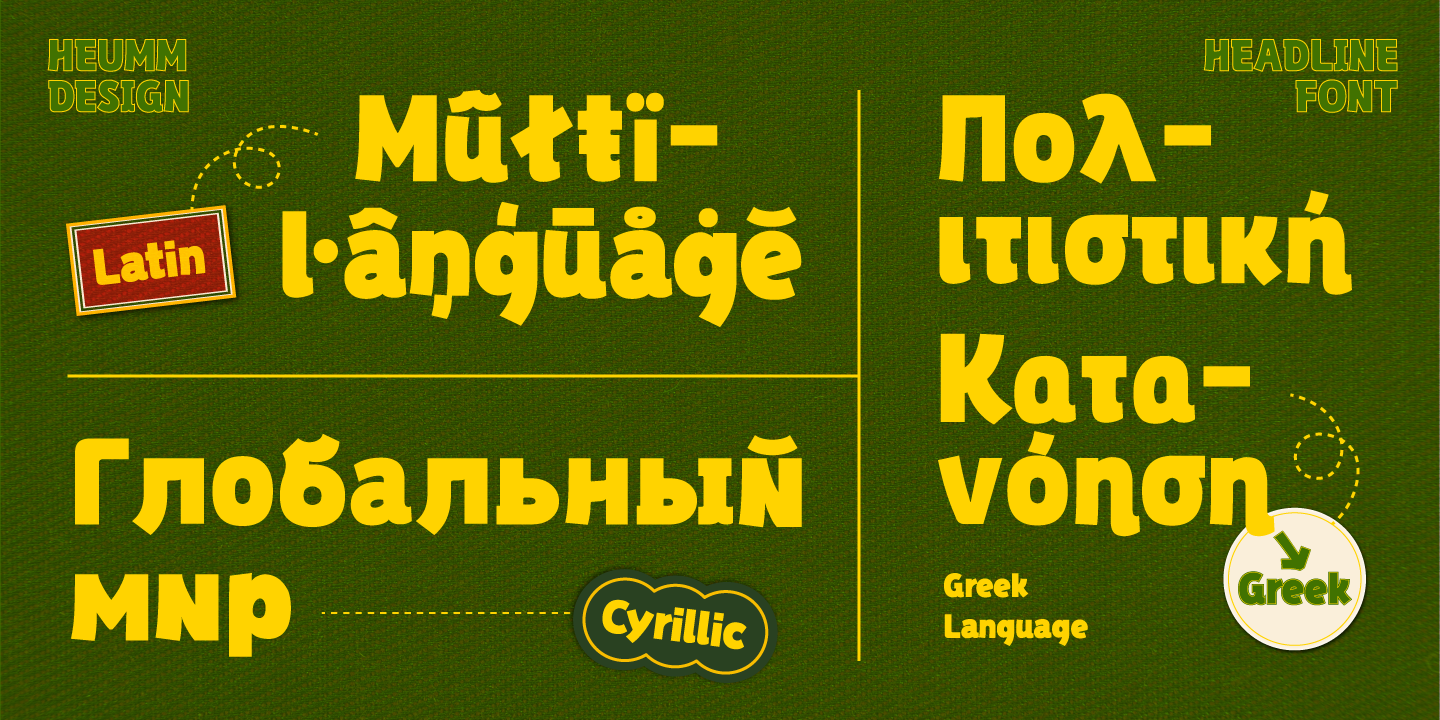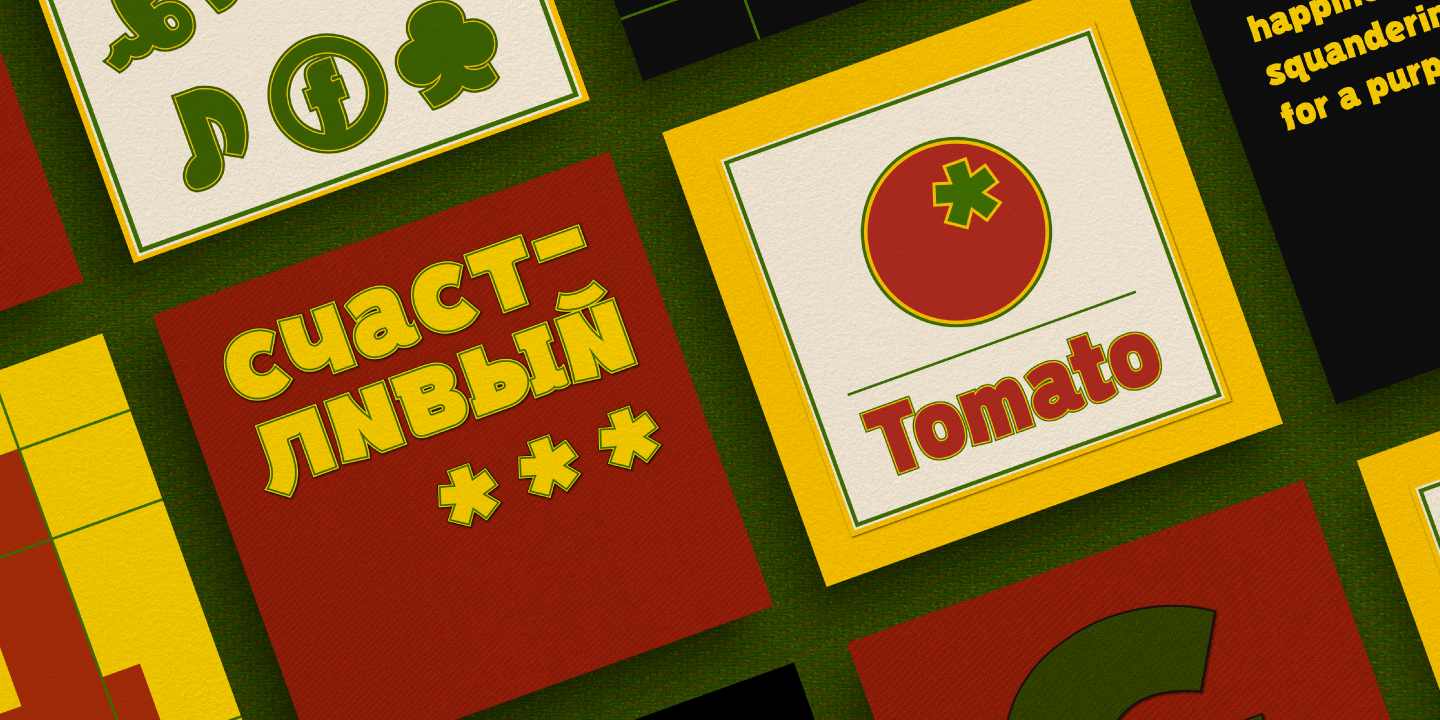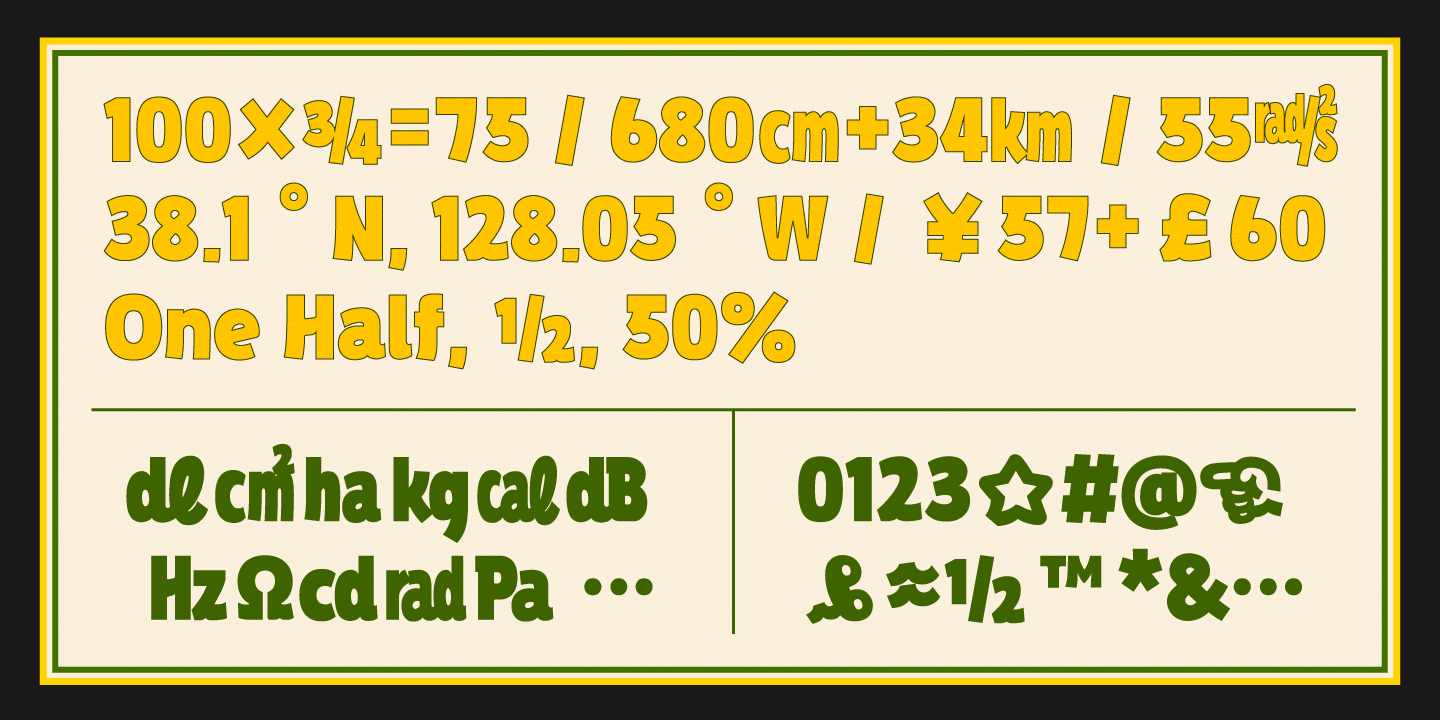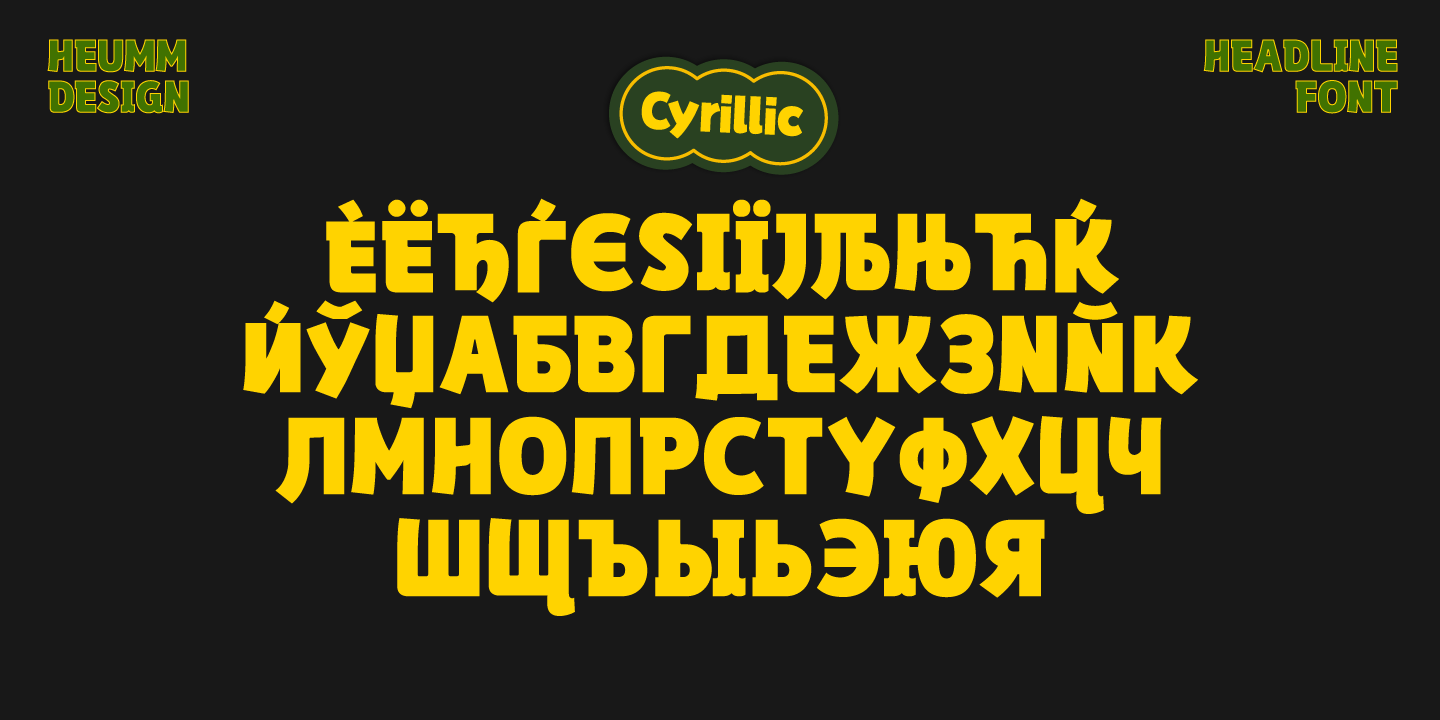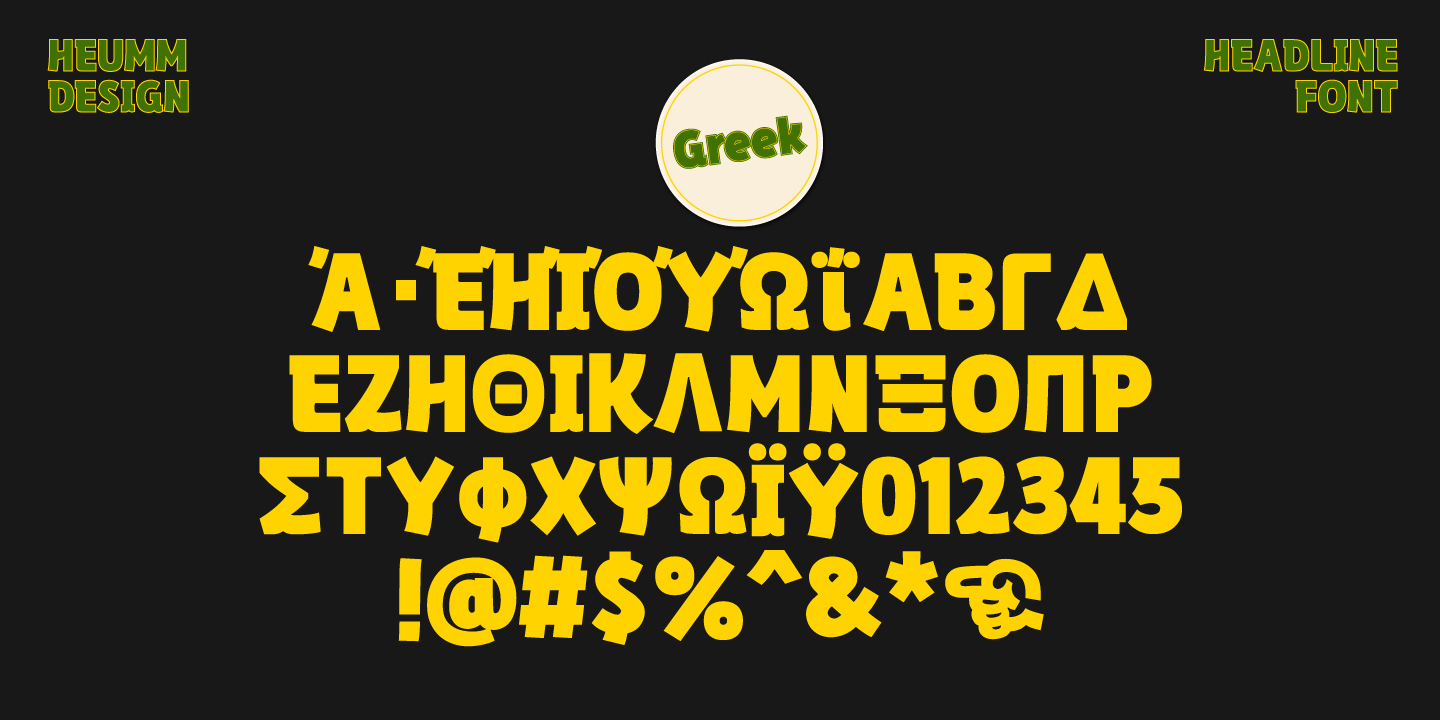
HU Ketchup is special headline font that has waving strokes like script font. It can be used to stress out something important, and for any artwork that has retro vibe. It also looks good with food packaging, so it has diverse usage.
HU Ketchup - это особый шрифт заголовка, который имеет волнистые штрихи, как шрифт скрипта. Его можно использовать, чтобы подчеркнуть что-то важное, а также для любых произведений искусства в стиле ретро. Он также хорошо смотрится с пищевой упаковкой, поэтому имеет разнообразное применение.
Το HU Ketchup είναι μια ειδική γραμματοσειρά επικεφαλίδας που έχει κυματοειδείς πινελιές όπως γραμματοσειρά σεναρίου. Μπορεί να χρησιμοποιηθεί για να τονίσει κάτι σημαντικό και για οποιοδήποτε έργο τέχνης έχει ρετρό ατμόσφαιρα. Φαίνεται επίσης καλό με τη συσκευασία τροφίμων, επομένως έχει διαφορετική χρήση.